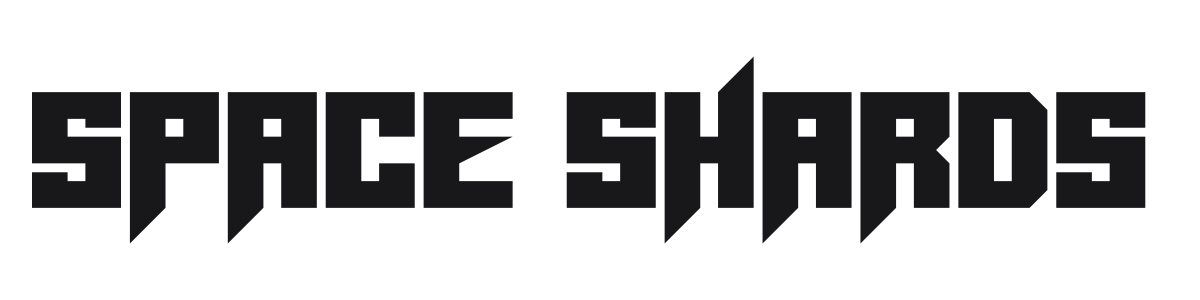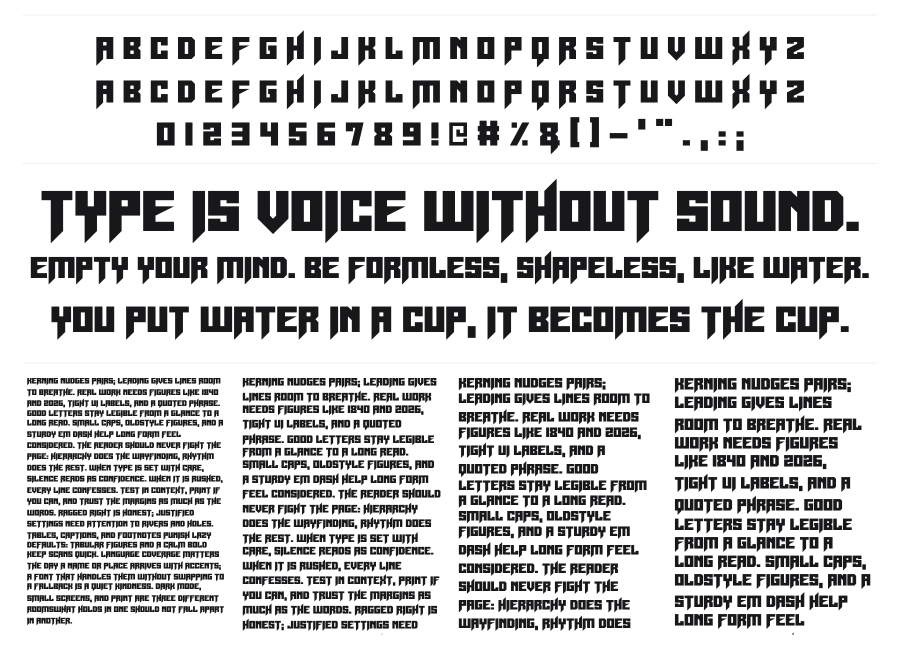
Space Shards
Space Shards is a heavy, angular display font built on sharp shard-like cuts and aggressive geometry. Its characters feature jagged notches and pointed terminal breaks that evoke both science fiction and heavy metal aesthetics. Strong at large sizes for game titles, band logos, and action-oriented branding.